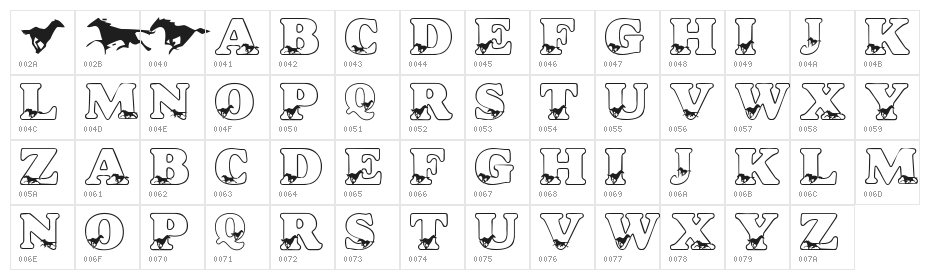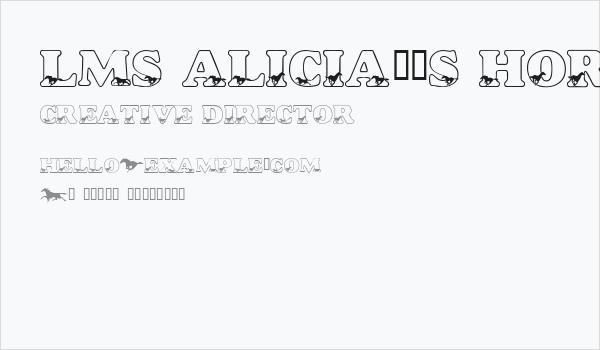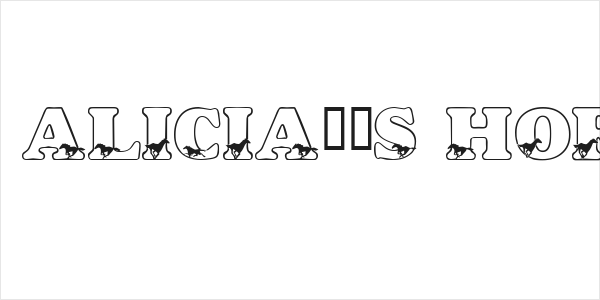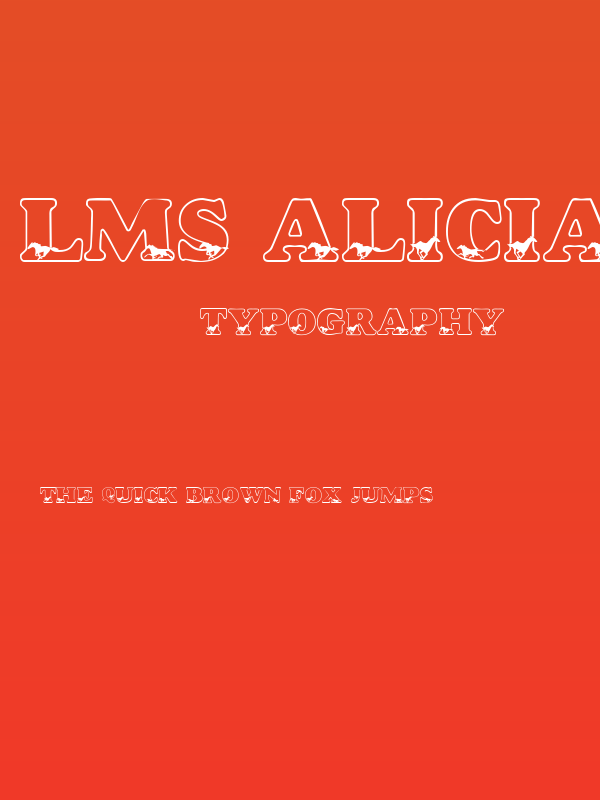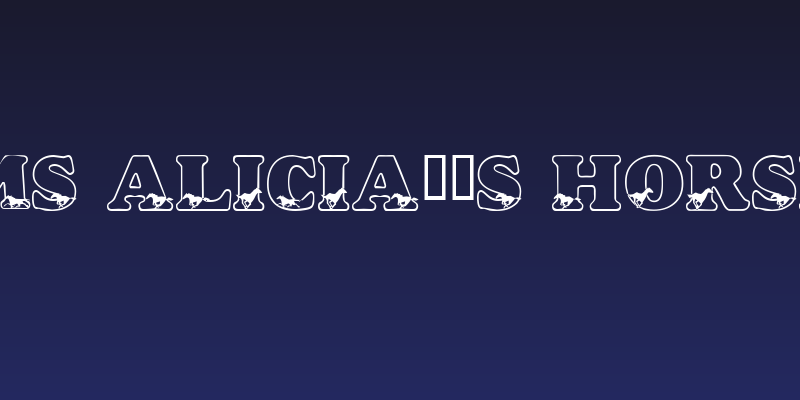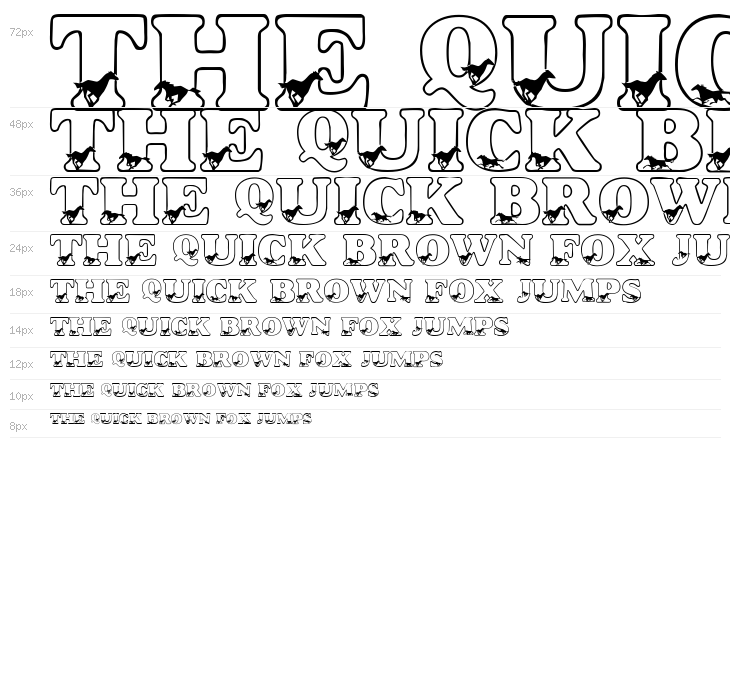
LMS Alicia's Horses Font
LMS Alicia's Horses Description
This decorative font features a unique design where each letter is integrated with a horse silhouette, creating a dynamic and playful appearance. The uppercase letters are bold and outlined, with the horse motif adding a whimsical touch. The font maintains a consistent style across all characters, ensuring readability while also serving as a striking visual element. The horse designs are detailed and positioned creatively within each letter, making it ideal for projects that require a theme related to animals or equestrian activities.
| Use Case | Headlines, Logos, Themed Events |
| Proposed Projects | Ideal for equestrian-themed posters, children's book covers, playful branding, or any design requiring a whimsical touch. |